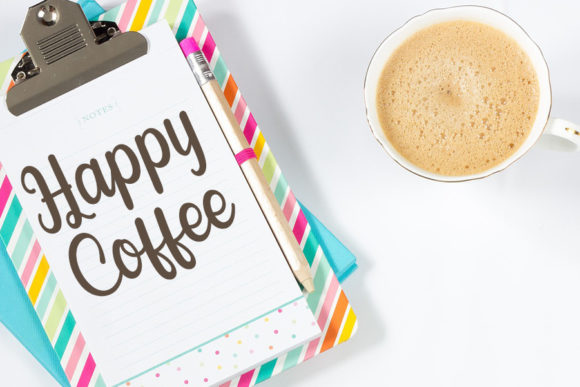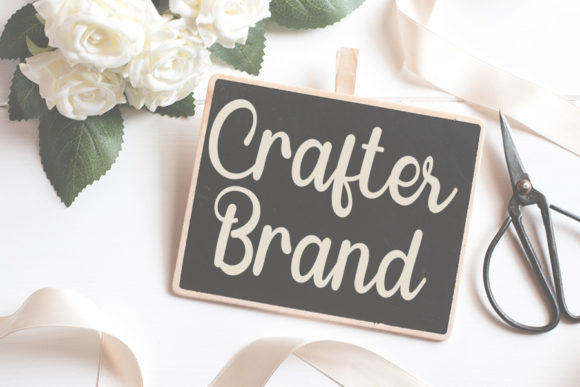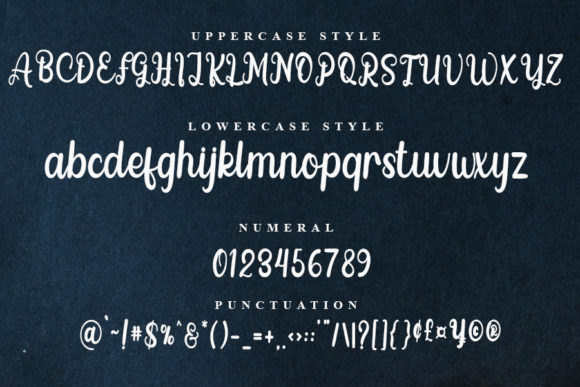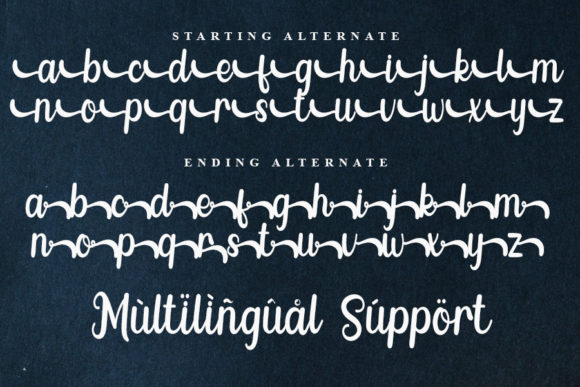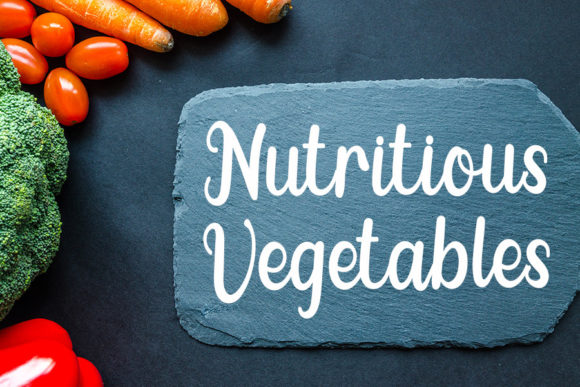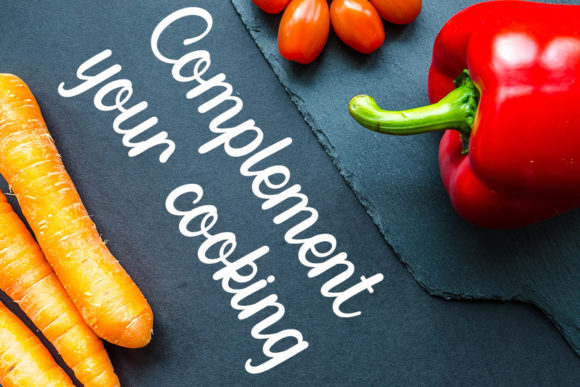
The Perfect Ingredient for Your Design Recipe
As a designer, there’s nothing quite like the thrill of stumbling upon the perfect font to elevate a project. It’s that moment when the words come together, and the visual magic happens. For me, that moment came when I discovered the Butter Chicken Font. This stunning calligraphy font is a game-changer for anyone looking to add a touch of sophistication and modern flair to their designs.
Whether you’re working on branding, invitations, stationery, or social media posts, the Butter Chicken Font is the perfect ingredient to take your designs to the next level. Its unique, well-rounded aesthetic makes it versatile and easy to use, while its PUA encoding ensures that you can access all of the glyphs and swashes with ease. As a designer, you’ll appreciate the value that this font brings to your projects, and it’s sure to become a favorite in your design arsenal.
Butter Chicken Font Key Features
- Font Family: Butter Chicken Font is a unique, custom-designed font that offers a distinctive look for any project.
- Unique Characteristics: Features a distinctive, hand-drawn style with intricate details and ornate flourishes, making it perfect for adding a touch of elegance to designs.
- Font Style: Available in regular and bold styles, providing flexibility for designers to create contrasting text effects.
Designer Review: Butter Chicken Font
I recently had the chance to try out the Butter Chicken Font, and I must say it’s a unique addition to any design project. Here are my thoughts on what works well and what doesn’t:
- ✨ The font’s eclectic vibe is perfect for adding a touch of personality to any design. It’s a great choice for projects that need a little extra flair.
- ✨ The font’s varied weights and styles make it easy to create a cohesive look across multiple elements.
- ✨ The font’s script-like qualities make it a great choice for creating a sense of movement and energy.
- ⚠️ The font’s unique style may not be for everyone, and some designers may find it too busy or overwhelming.
- ⚠️ The font’s script-like qualities can make it difficult to read in certain contexts, such as body text.
- ⚠️ The font’s limited support for non-English languages may limit its use in certain projects.
Overall, I think the Butter Chicken Font is a great choice for designers who want to add a little extra personality to their projects. While it may have some limitations, its unique style and varied weights make it a versatile and interesting font to work with.
Tips for Getting the Most Out of Butter Chicken Font
For the best results, use Butter Chicken Font in bold or italic styles to add emphasis. You can also pair it with other fonts to create a unique and eye-catching design. Experiment with different font sizes and colors to find the perfect combination for your project.
Butter Chicken Font is perfect for creating menus, recipes, and food-related designs. It’s also great for adding a touch of Indian flair to your branding and marketing materials. Use it to create eye-catching headlines, captions, and product labels that will grab the attention of your target audience.